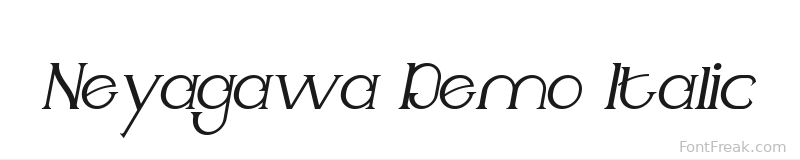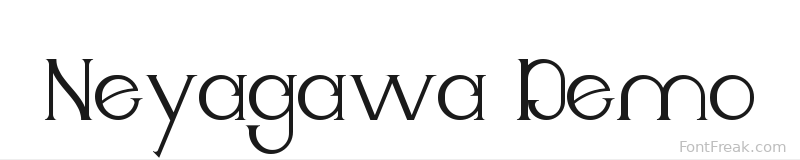
Neyagawa Demo
Neyagawa Demo Italic
About Neyagawa Demo
The Neyagawa Demo font by Noah Type is a captivating display typeface characterized by its unique serif style. This font is designed with a graceful balance of elegance and modernity, making it an ideal choice for various creative projects. The letters feature a moderate stroke weight that provides a welcoming visual appeal, while the subtle contrast between thick and thin lines adds depth and sophistication. The spacing is thoughtfully executed, ensuring readability without sacrificing style, making it perfect for both headlines and body text.
Neyagawa Demo excels in a variety of specific use cases. It is particularly well-suited for wedding invitations, where its elegant serifs can convey a sense of romance and charm. Additionally, it makes a striking choice for movie posters, as its distinctive character can grab attention and create a memorable first impression. Restaurant menus can also benefit from Neyagawa Demo, lending a touch of class that elevates the dining experience. Furthermore, content creators and social media marketers will find it valuable for branding purposes, as it adds a unique flair to promotional materials.
The target audience for this font includes graphic designers looking for fresh and innovative typefaces, small business owners who want to enhance their branding, and content creators seeking to capture the essence of their projects with distinctive typography.
What truly sets the Neyagawa Demo font apart is its versatile charm and modern aesthetic. It seamlessly blends classic serif elements with contemporary design, making it a standout choice for those who want to make a lasting impression. Whether you are designing a sophisticated event invitation or crafting eye-catching promotional content, the Neyagawa Demo font free download offers an opportunity to elevate your work with style and elegance.